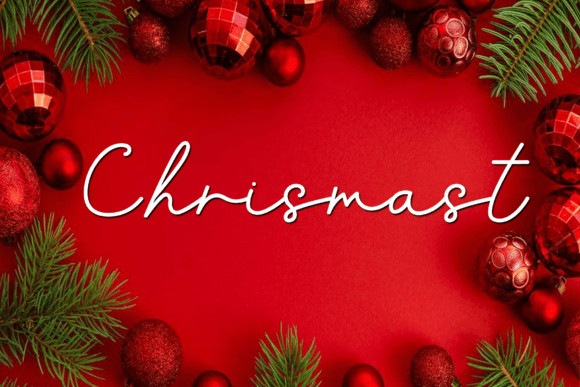
Step into the world of Chrismast Font, where elegance and creativity intertwine to create a masterpiece. This exquisite script font, meticulously crafted by RR Studio, is more than just a collection of letters; it's an expression of your individuality, a testament to your impeccable taste. Let Chrismast Font be the beacon that guides your designs to unprecedented heights.
As a script font, Chrismast embodies the fluidity and grace of handwritten strokes. its delicate curves and sweeping lines dance across the page, evoking a sense of movement and dynamism. It's the perfect choice for adding a touch of sophistication and personal flair to your designs, whether you're creating a logo, a poster, or a magazine layout.
Chrismast Font shines brightest when applied to elegant projects that demand a classic yet modern touch. Picture your designs adorned with this font, captivating your audience with its timeless beauty. Your logotypes will exude an air of authority and elegance, while your headlines will command attention with their captivating presence. The apparel industry will fall under the spell of Chrismast Font, as it elevates t-shirt designs, branding, and marketing materials to a whole new level.
But Chrismast Font is more than just a pretty face; it's a versatile workhorse that can adapt to any creative challenge you throw its way. Whether you're crafting posters for an upcoming event, designing covers for your latest musical album, or creating eye-catching visuals for your YouTube channel, Chrismast Font will rise to the occasion and deliver stunning results. Its versatility extends to Instagram posts, websites, and even creative projects like comics and cartoons. Let Chrismast Font be your creative companion, transforming your designs into captivating works of art.
Join the ranks of designers who have discovered the magic of Chrismast Font. Let it add a touch of sophistication to your resume, making it stand out from the crowd and leaving a lasting impression on potential employers. Unleash your creativity and let Chrismast Font weave its magic into your designs, whether it's a poster, a magazine cover, or a branding project. Elevate your work to new heights and make a statement that speaks volumes about your unique style.
With its timeless charm and versatile nature, Chrismast Font is the perfect choice for designers seeking distinction and elegance. It's more than just a font; it's a journey into the realm of creativity, where your vision takes center stage. Embrace Chrismast Font today and unlock the endless possibilities it holds for your designs.